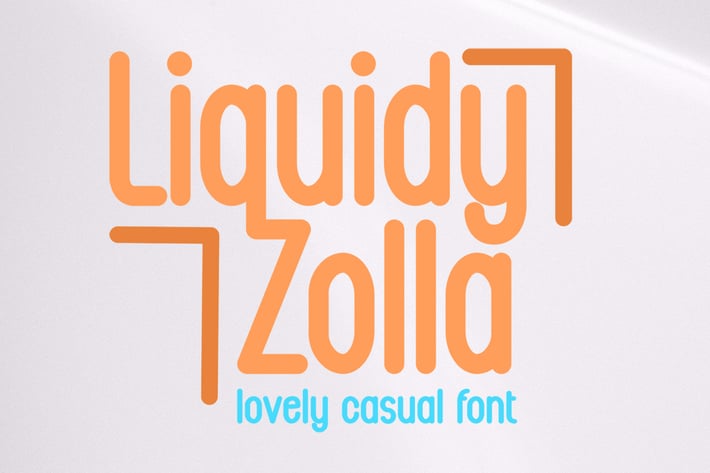
Liquidy Zolla - Casual Font
Introducing Liquidy Zolla, a casual and simple font. Its unique and lovely feel.
So perfect for you who needs a typeface for logo designs, magazine, social media, brochure, and many more.